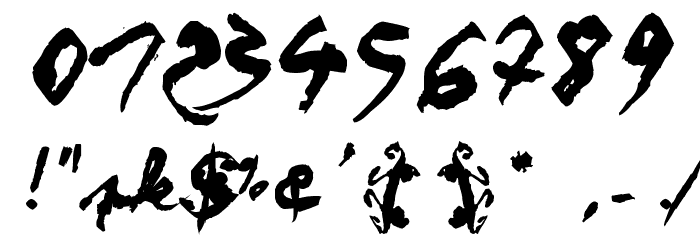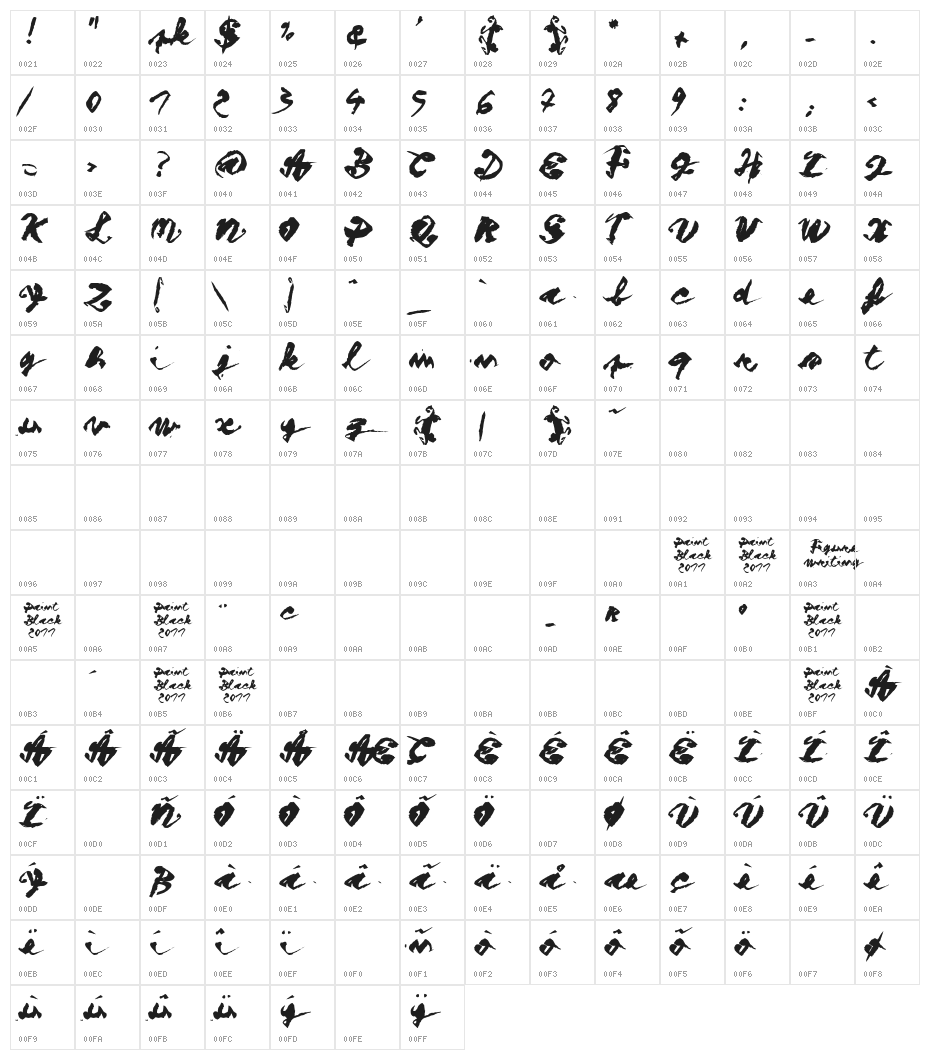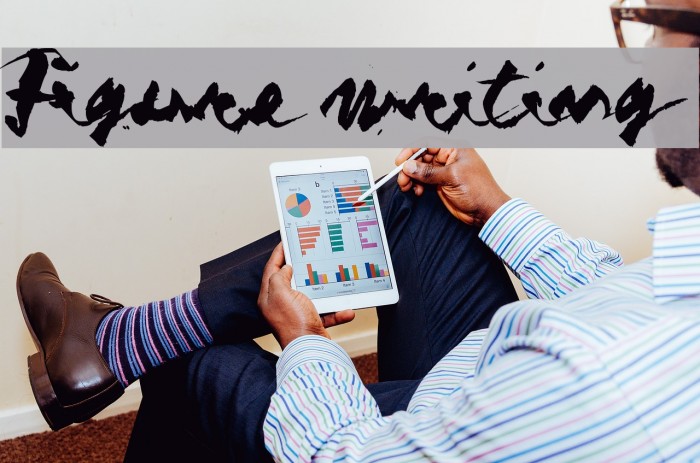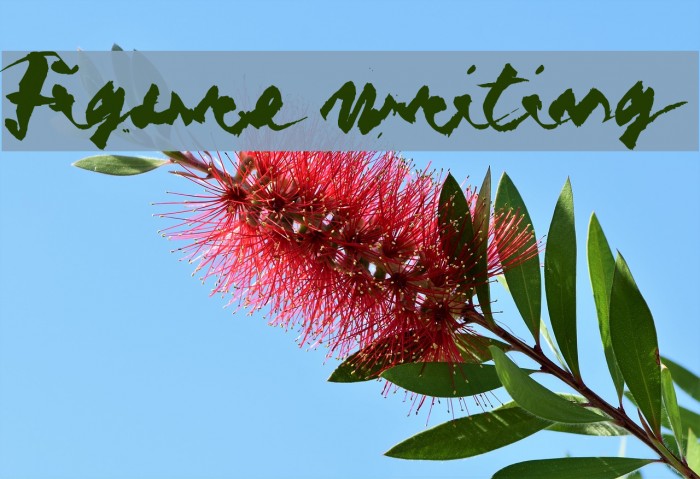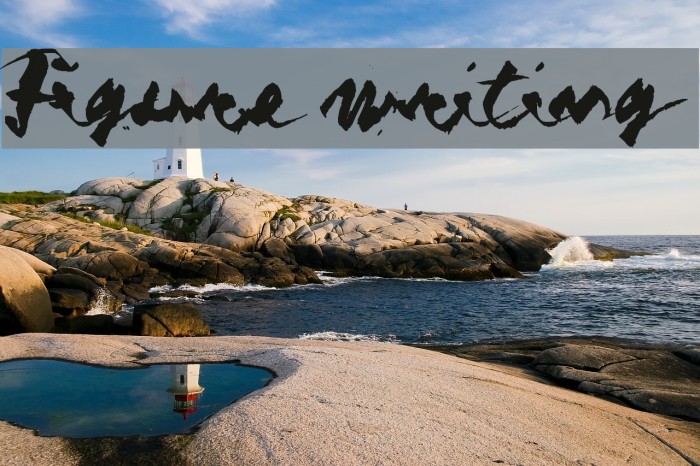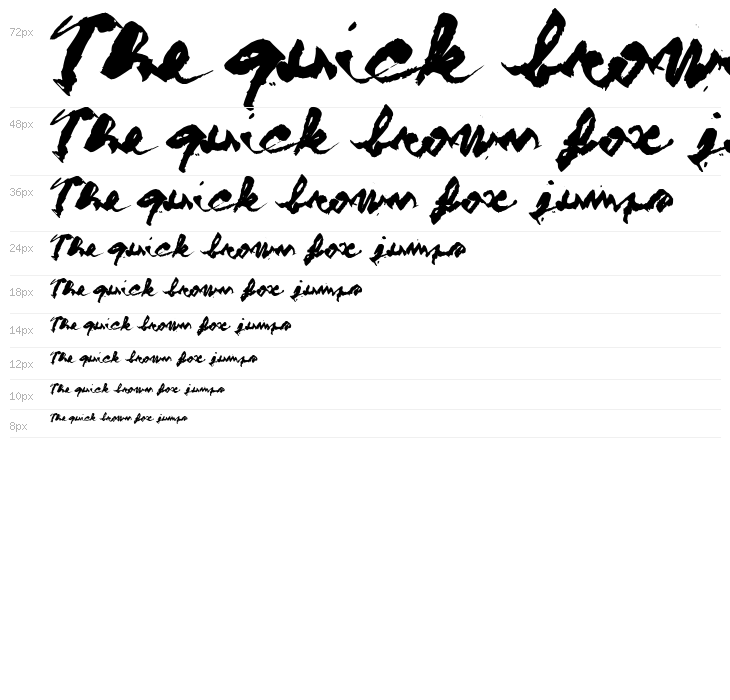
Figure writing Font
Figure writing Description
This font exhibits a bold and expressive style, characterized by its brush-like strokes and dynamic flow. The letters are crafted with a sense of movement, giving them an energetic and artistic appearance. The uppercase and lowercase letters maintain a consistent style, with some letters featuring dramatic flourishes and others more restrained. The numbers and special characters follow the same expressive design, making them stand out with their unique shapes. This font's overall aesthetic is reminiscent of calligraphy, with a modern twist that adds a contemporary edge.
| Proposed Projects | Ideal for artistic projects, branding, posters, and invitations where a bold, expressive touch is desired. |